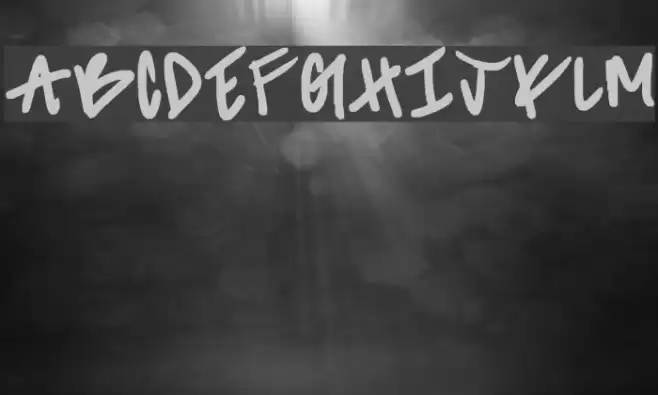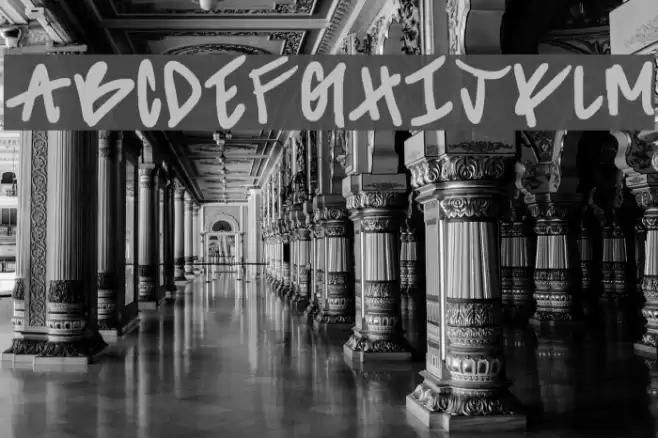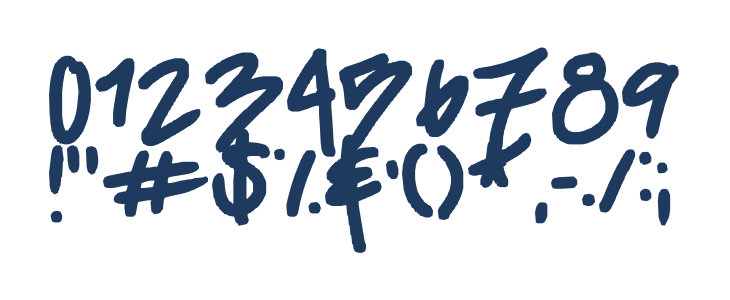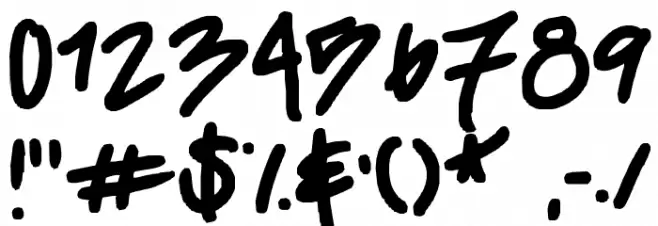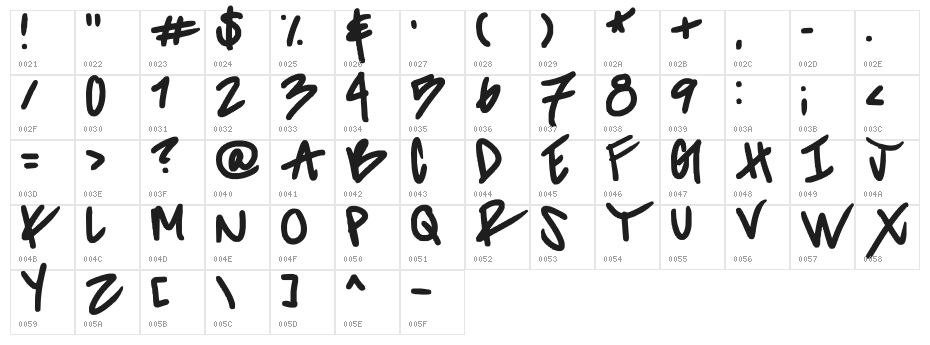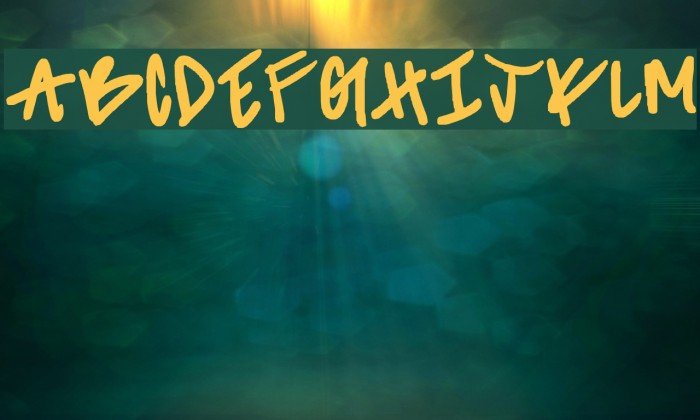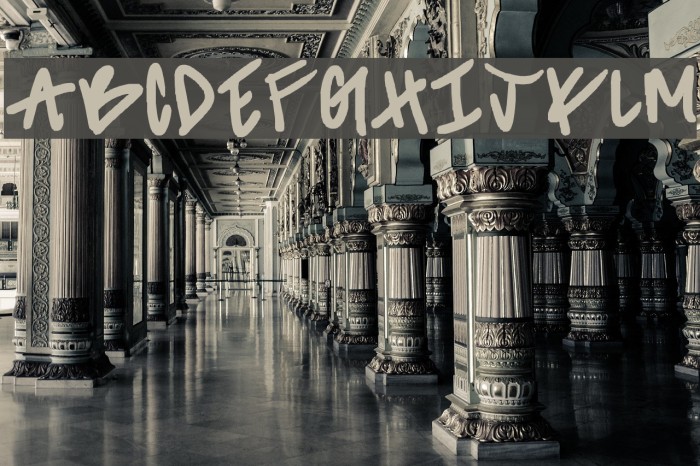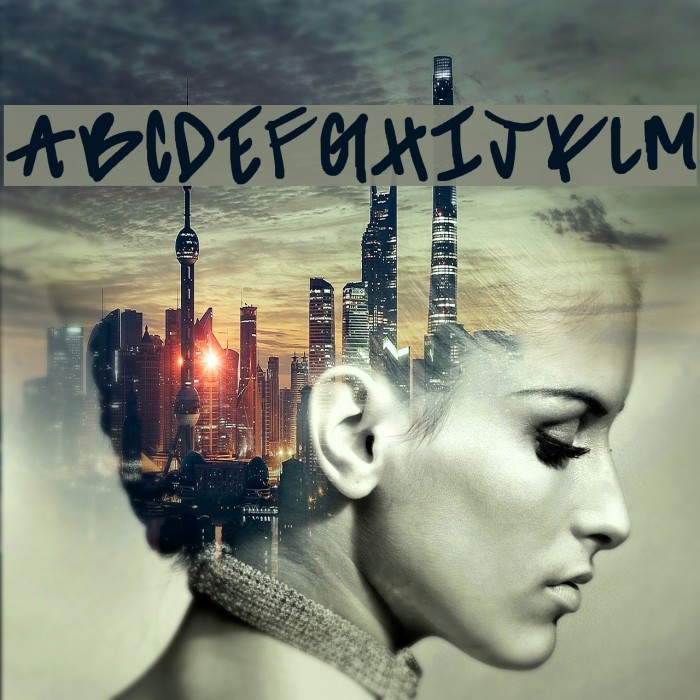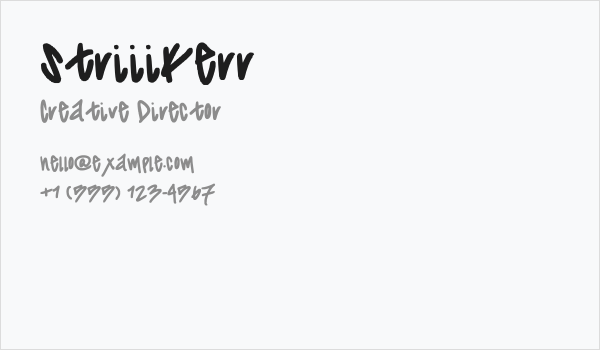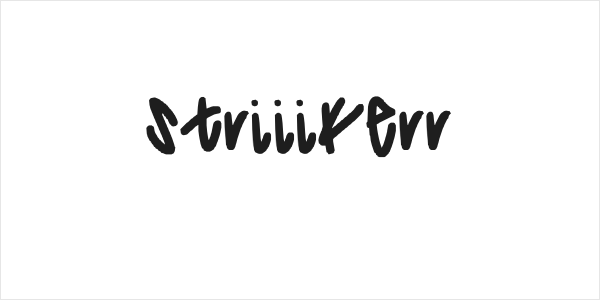
striiikerr Font
striiikerr Description
This font features a bold and expressive handwritten style, characterized by its dynamic and energetic strokes. The letters are crafted with a casual flair, giving them a playful and informal appearance. The uppercase and lowercase letters maintain a consistent flow, while the numbers and special characters complement the overall aesthetic. The font's thick strokes and irregular shapes convey a sense of spontaneity and creativity, making it ideal for projects that require a personal touch.
A bold, expressive handwritten font with dynamic strokes from Handwritten fonts.